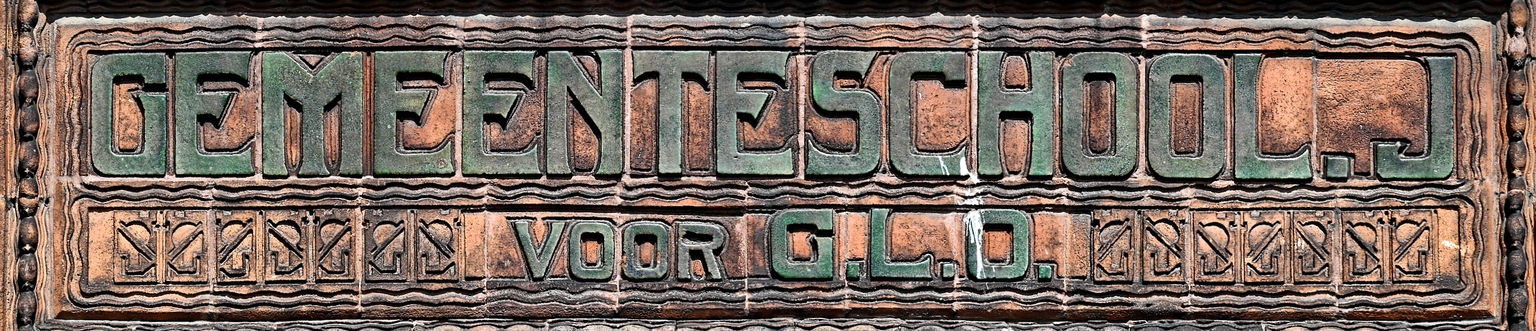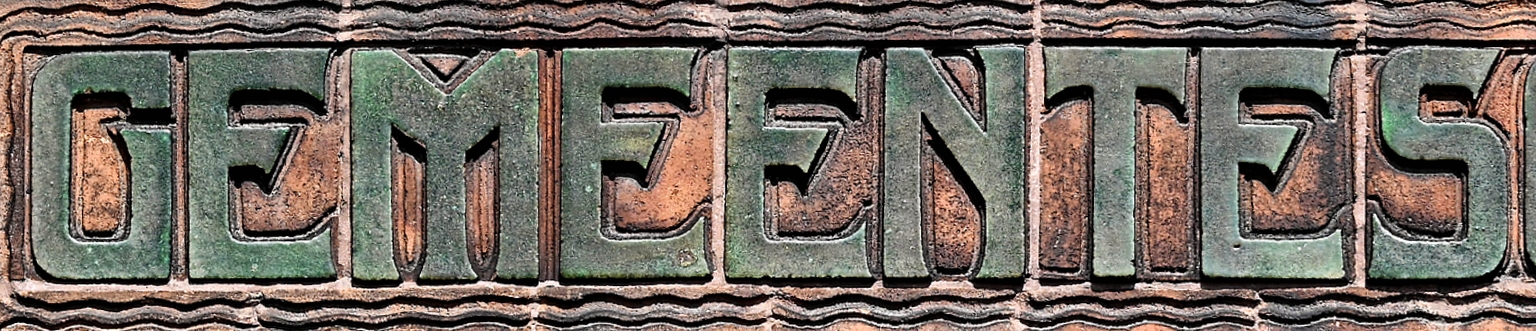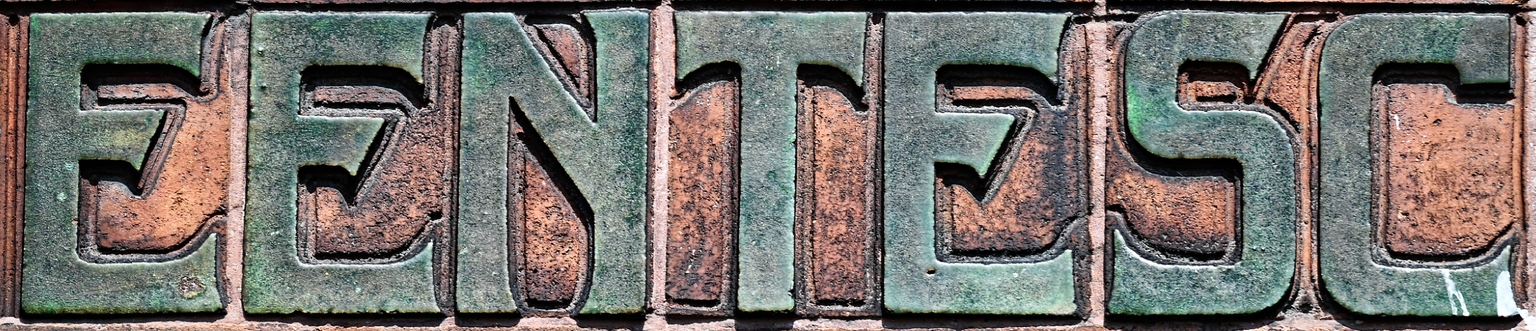
Edisonplein
Edisonplein is a display typeface designed by Paula Mastrangelo and Ramiro Espinoza, inspired by the lettering at the entrance of the former “Gemeenteschool J. voor GLO,” a Dutch public school located at Edisonplein 20–46 in Schiedam, the Netherlands. The original façade inscription reveals a distinctive blend of subtle Art Nouveau inflections and geometric, modular construction.
Mastrangelo and Espinoza examined the proportions, stroke modulation, and underlying system of the historic letters, translating these characteristics into a contemporary digital typeface. Rather than replicating the inscription verbatim, they refined its geometry, corrected irregularities, and expanded the character set for present-day applications, while preserving the interplay between decorative nuance and structural clarity that defines the source.
Edisonplein is well suited for labels, posters, packaging, branding, signage, websites, and cultural projects that benefit from a typographic voice balancing expressive detail with technical discipline. Rooted in early twentieth-century façade lettering, it bridges ornamental tradition and modular modernity in a versatile, contemporary form.